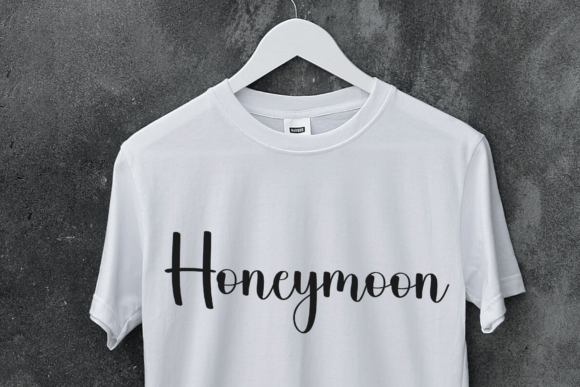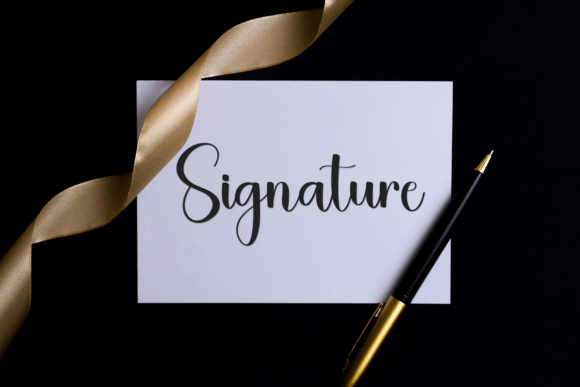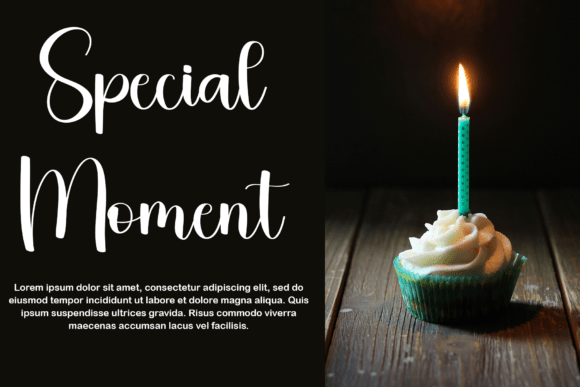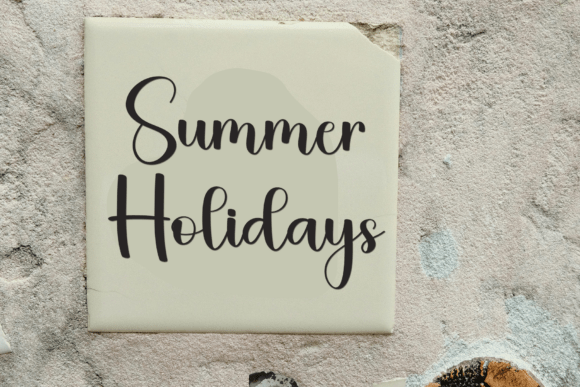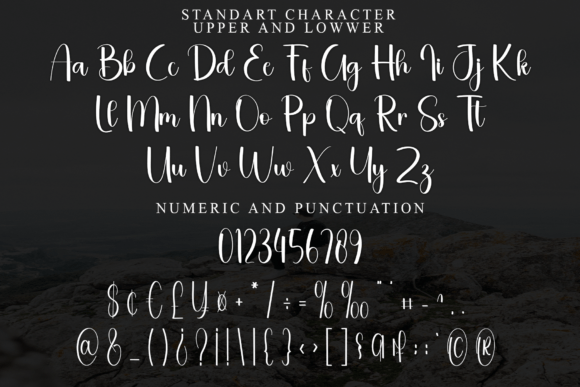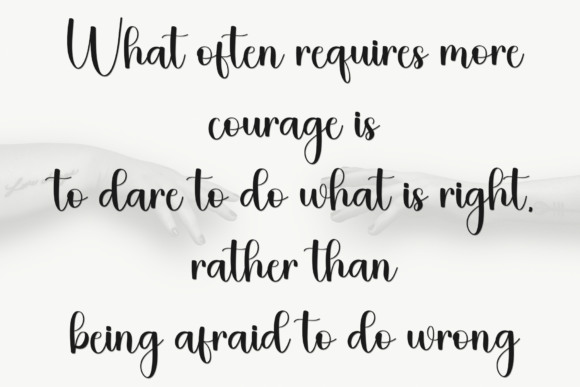
Introducing Flowers Party Font: The Perfect Addition to Your Design Collection
Are you tired of using the same old fonts in your designs? Do you want to add a touch of warmth and friendliness to your projects? Look no further than Flowers Party Font, a casual and creative font that’s perfect for personal projects, invitations, and social media graphics.
The Characteristics of Flowers Party Font
Flowers Party Font is a unique and charming font that exudes a sense of playfulness and approachability. Its round, playful strokes create a relaxed and casual feel that’s perfect for designs that need a personal touch. The font’s hand-drawn aesthetic adds a fun and unique touch to any design, making it stand out from more traditional fonts.
What Makes Flowers Party Font So Versatile?
Perfect for Personal Projects and Small Businesses
Flowers Party Font is perfect for designers and crafters who want to add a personal touch to their projects. Whether you’re creating invitations, social media graphics, or blog posts, this font is sure to make your designs stand out. The font’s casual and approachable feel makes it perfect for small businesses and personal brands that want to connect with their audience on a more personal level.
Why Choose Flowers Party Font?
So why choose Flowers Party Font over other fonts? Here are just a few reasons:
- Unique and charming aesthetic: Flowers Party Font has a one-of-a-kind hand-drawn aesthetic that’s sure to make your designs stand out.
- Easy to read and approachable: The font’s round, playful strokes create a relaxed and casual feel that’s easy to read and approachable.
- Perfect for personal projects and small businesses: Flowers Party Font is perfect for designers and crafters who want to add a personal touch to their projects.
How to Use Flowers Party Font in Your Designs
Using Flowers Party Font in your designs is easy. Here are a few tips to get you started:
- Pair it with other fonts: Flowers Party Font pairs well with other fonts, such as sans-serif fonts or script fonts. Experiment with different combinations to find the perfect look for your design.
- Use it for headings and titles: The font’s bold and playful strokes make it perfect for headings and titles.
- Add it to your social media graphics: Flowers Party Font is perfect for social media graphics, such as Instagram posts or Facebook graphics.
Flowers Party Font is a unique and charming font that’s perfect for designers and crafters who want to add a personal touch to their projects. With its round, playful strokes and hand-drawn aesthetic, this font is sure to make your designs stand out. Whether you’re creating personal projects, invitations, or social media graphics, Flowers Party Font is the perfect addition to your design collection.